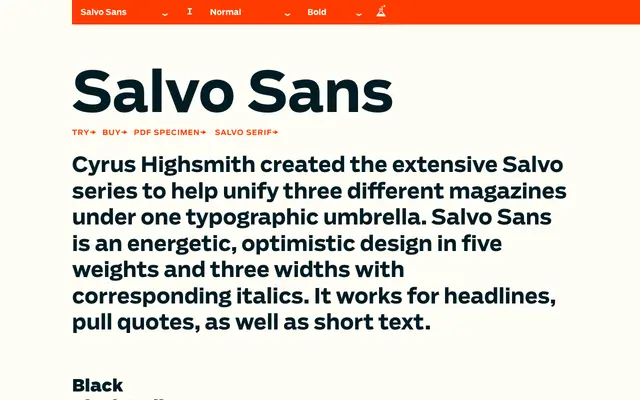
Salvo Sans
Occupant Fonts · Cyrus Highsmith · 2011
Designed by Cyrus Highsmith for editorial use, this five-weight, three-width sans was built to unify multiple magazines under a single typographic system.
Commissioned to bring typographic coherence to three separate magazines, it spans five weights from Light to Black across standard, Condensed and Extra Condensed widths, each with matching italics. The thirty-style family is positioned for headlines, pull quotes and short text settings, with a broad Latin Extended character set supporting a wide range of Western and Central European languages. The design carries an upbeat energy suited to fast-paced editorial environments without sacrificing legibility at smaller sizes.
Described as energetic and optimistic with a broad width range and italics, characteristics typical of humanist sans-serif design intended for editorial and text use across varied sizes.